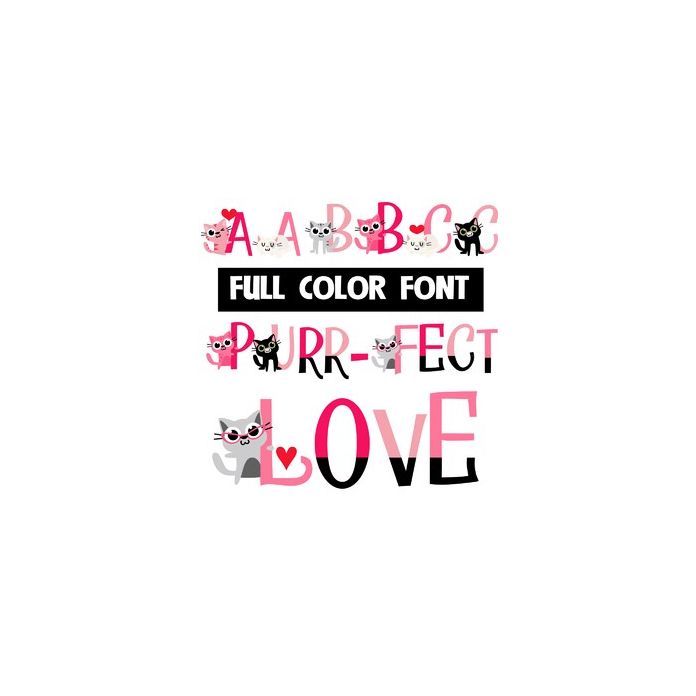
This full-color font features fun lettering with cats , hearts, and love. There is an alt case without cats that you can access through your system or Silhouette's glyph map.